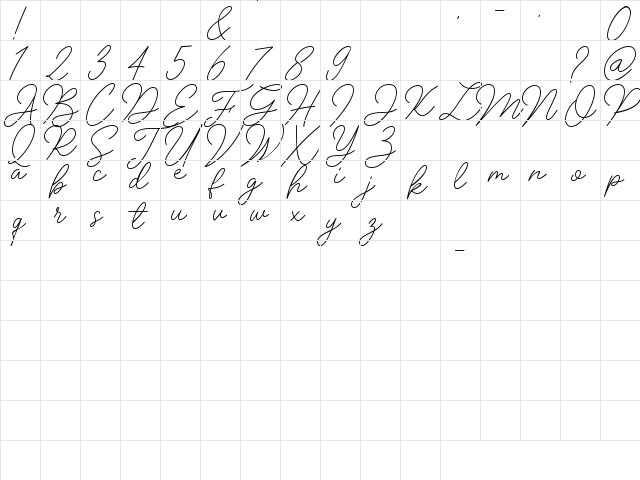
Insta Story Signature Regular
Design Context for Insta Story Signature
Insta Story Signature is a composed and adaptable typeface that performs quietly and consistently across a wide range of design contexts.
Pro Tip: Use Insta Story Signature in both headline and body roles to test its range before committing to a single application.